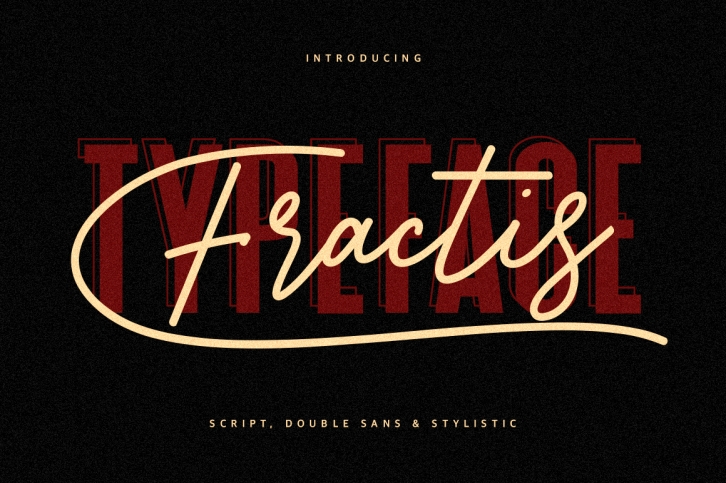
Fractis Typeface Collection is a gorgeous font that was realeased on September 4, 2018. The font can be used in many style contexts and design environments. Perfect for invitations, magazines, websites, logos, and more! It was designed by Maulana Creative and the file size is 19.32 MB. Thanks for checking out this font!